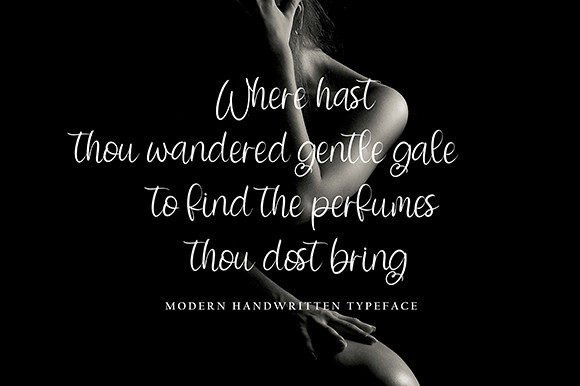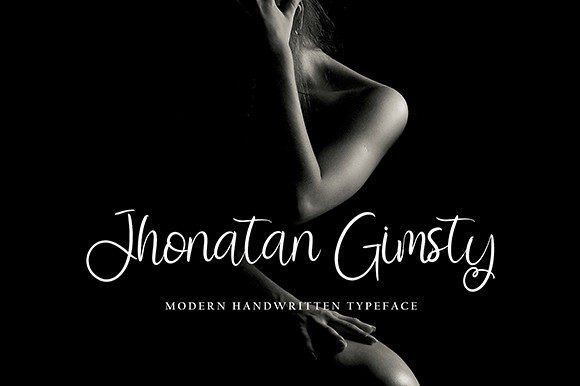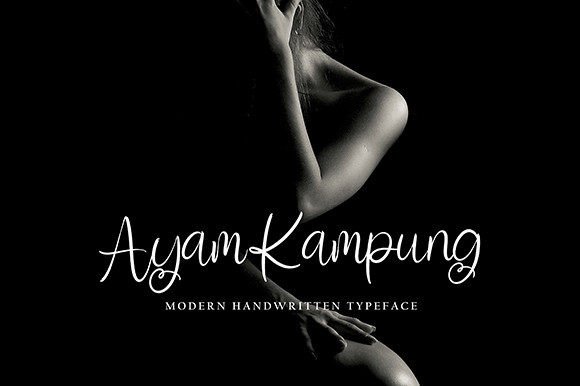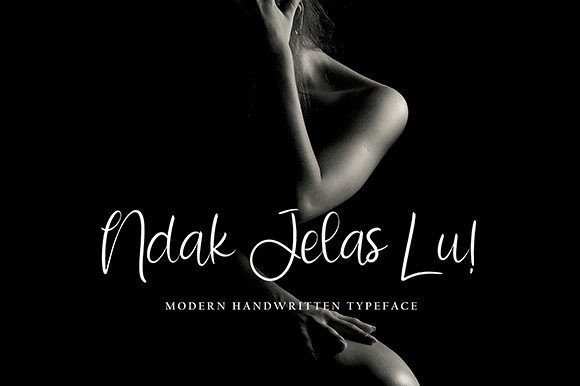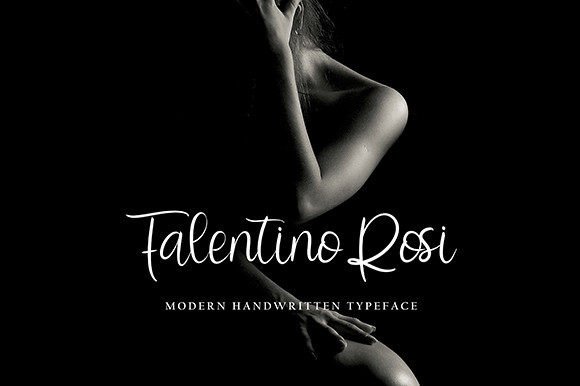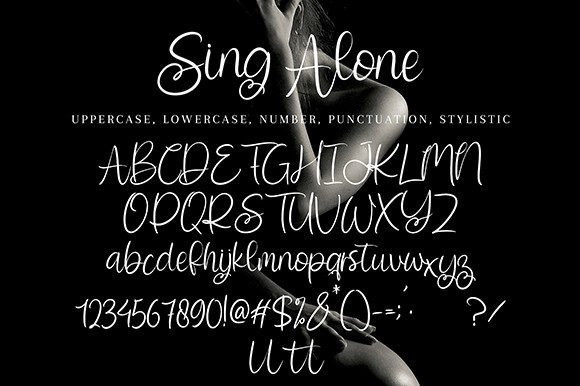
Introduction to Sing Alone Font
Sing Alone is a stylish and elegant handwritten font.
It looks stunning on wedding invitations, thank you cards, quotes, greeting cards, logos, business cards, and any other design that needs a handwritten touch .